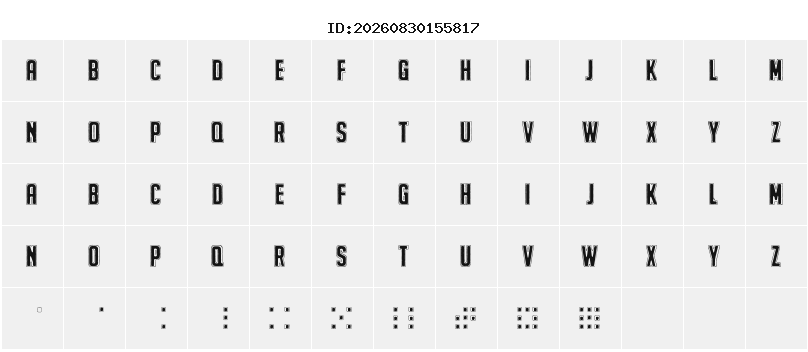
• Font Name: The Beginning Of Memory
• Designer: junkohanhero
About The Beginning Of Memory.ttf
The Beginning Of Memory.ttf is a modern, elegant sans-serif font designed for ultimate readability and visual harmony. Perfect for branding, headlines, web design, and print materials.